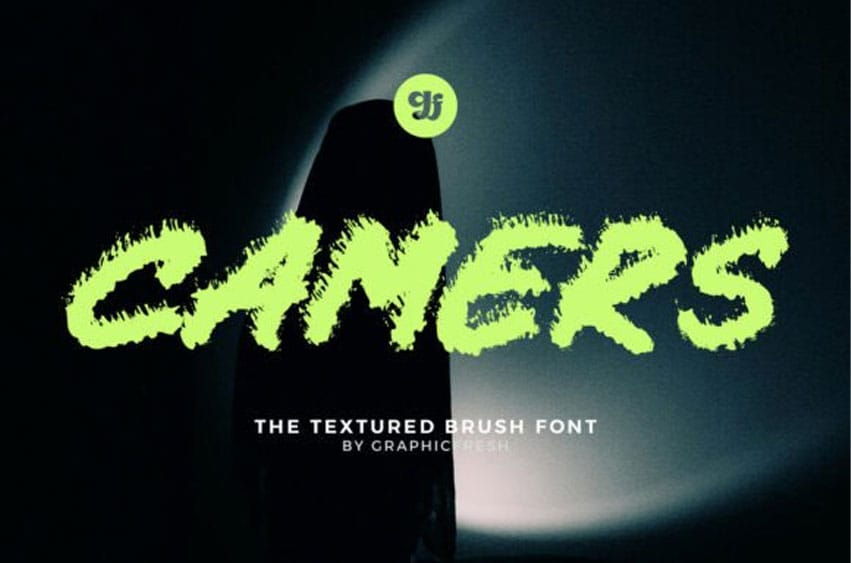
Camers Font is a textured brush font designed with bold strokes and rich hand-painted detail. Inspired by the natural texture of real brush lettering, this font delivers a strong artistic character with dynamic movement. The rough brush edges and organic forms create depth and personality while maintaining clear readability.
Camers is perfect for branding, logos, headlines, posters, social media graphics, packaging, and creative projects that require a bold textured brush style with expressive visual impact.